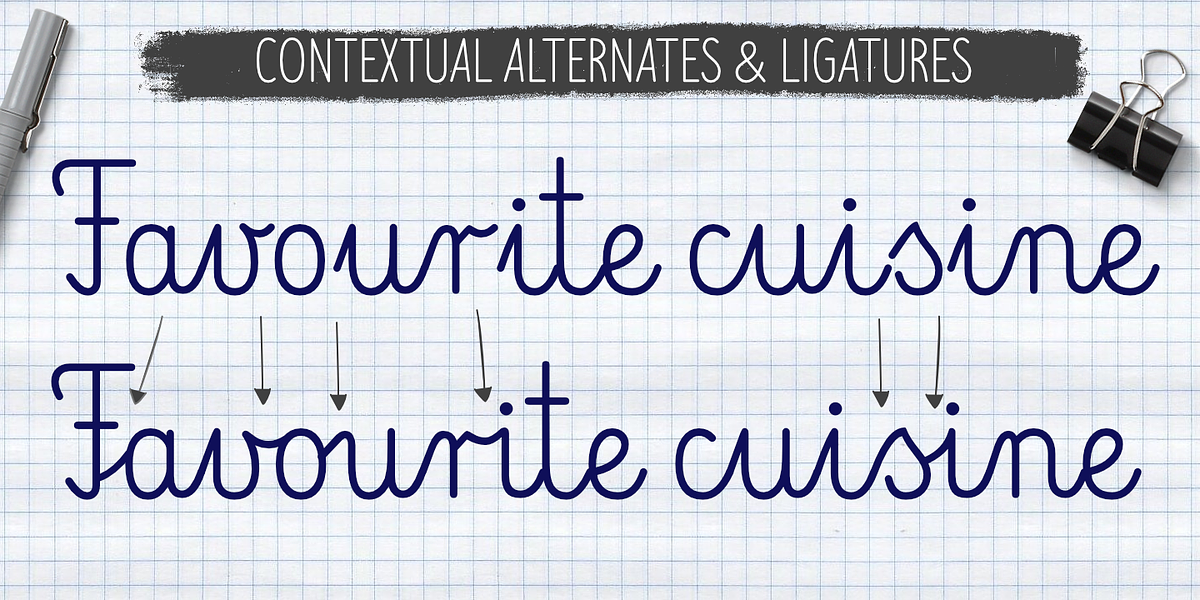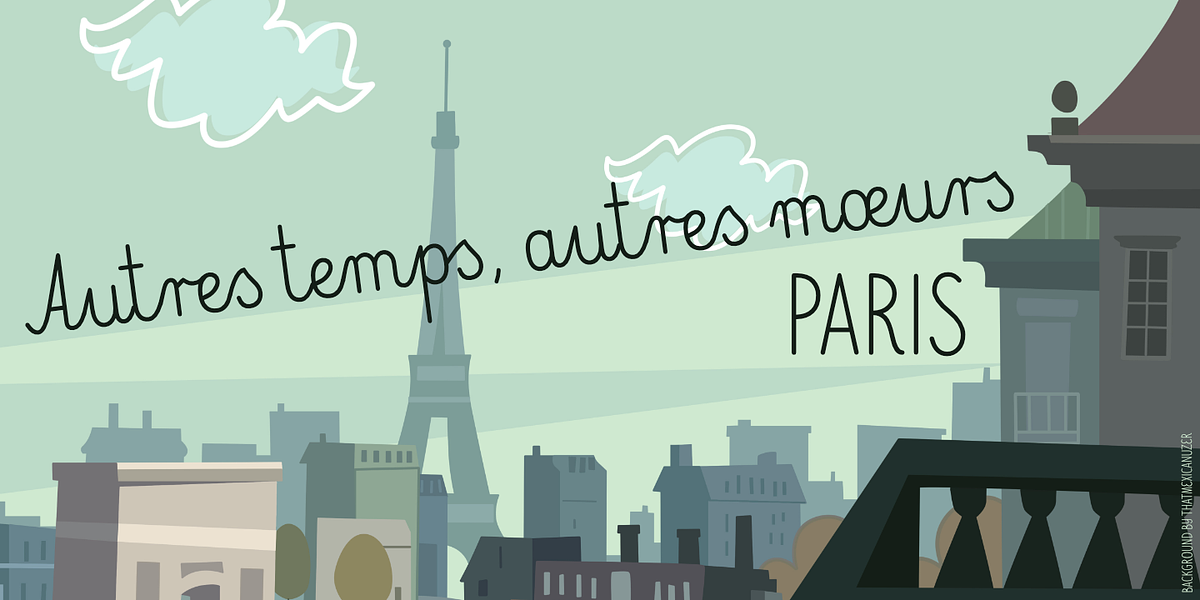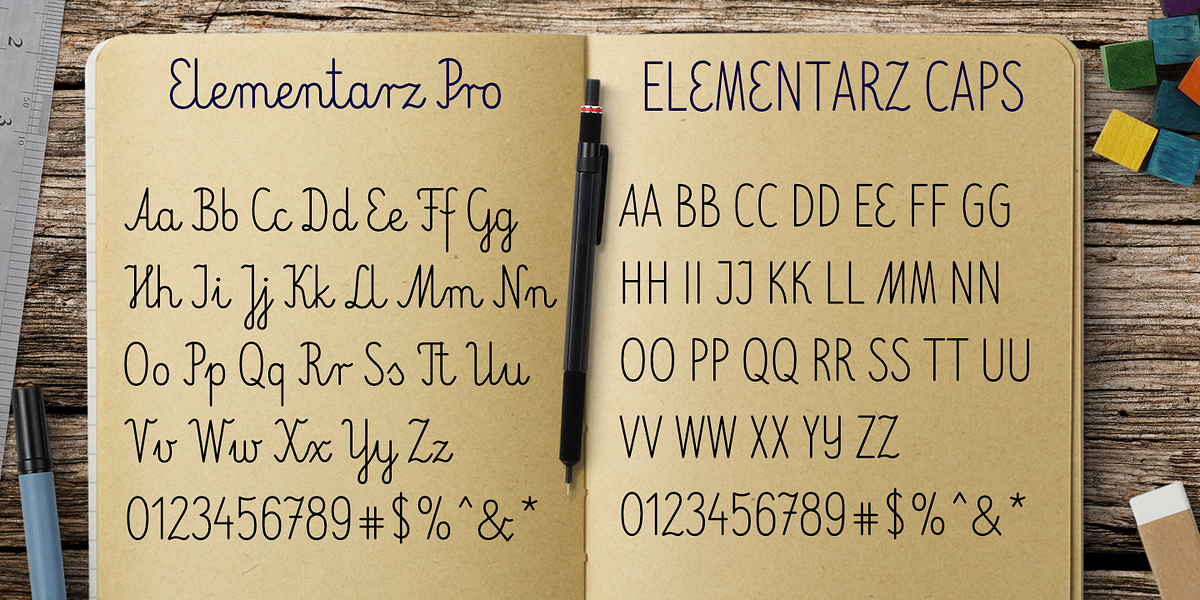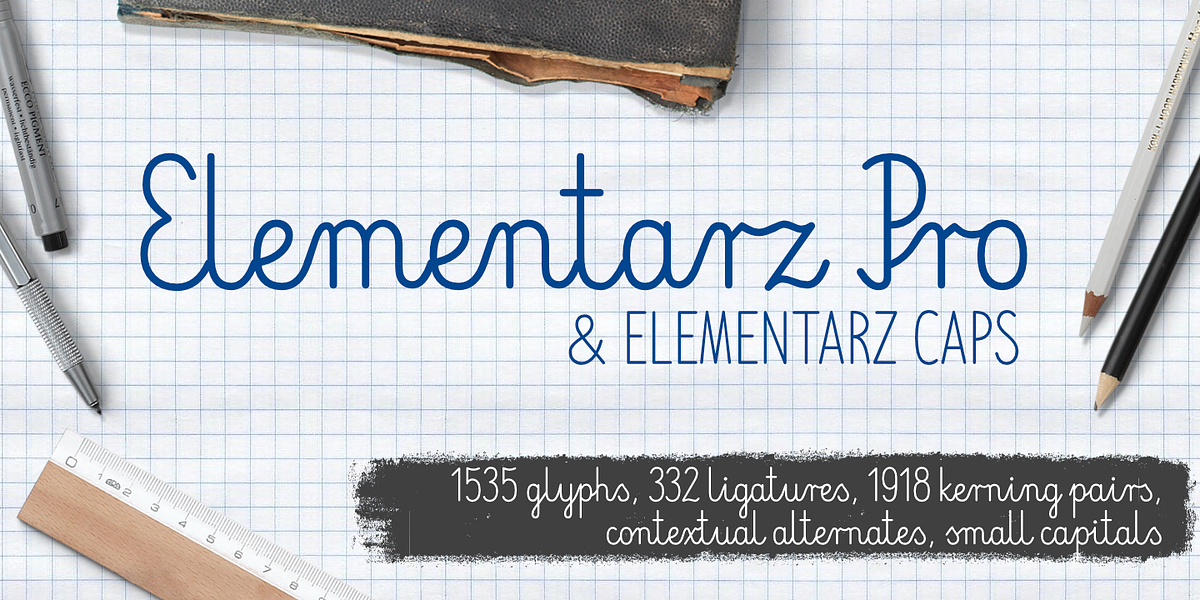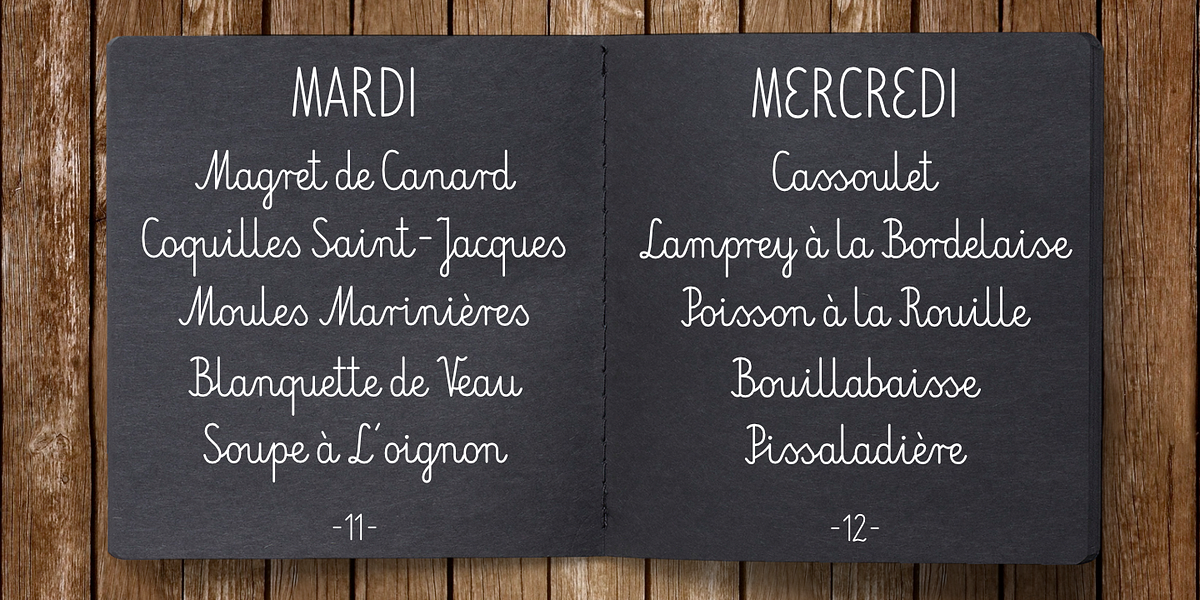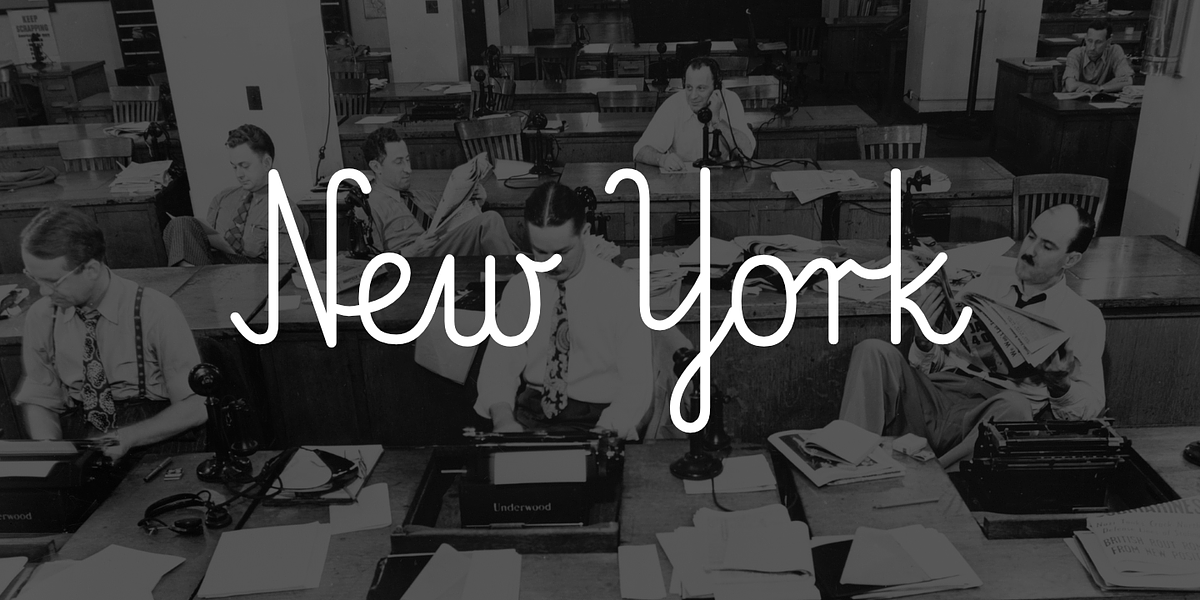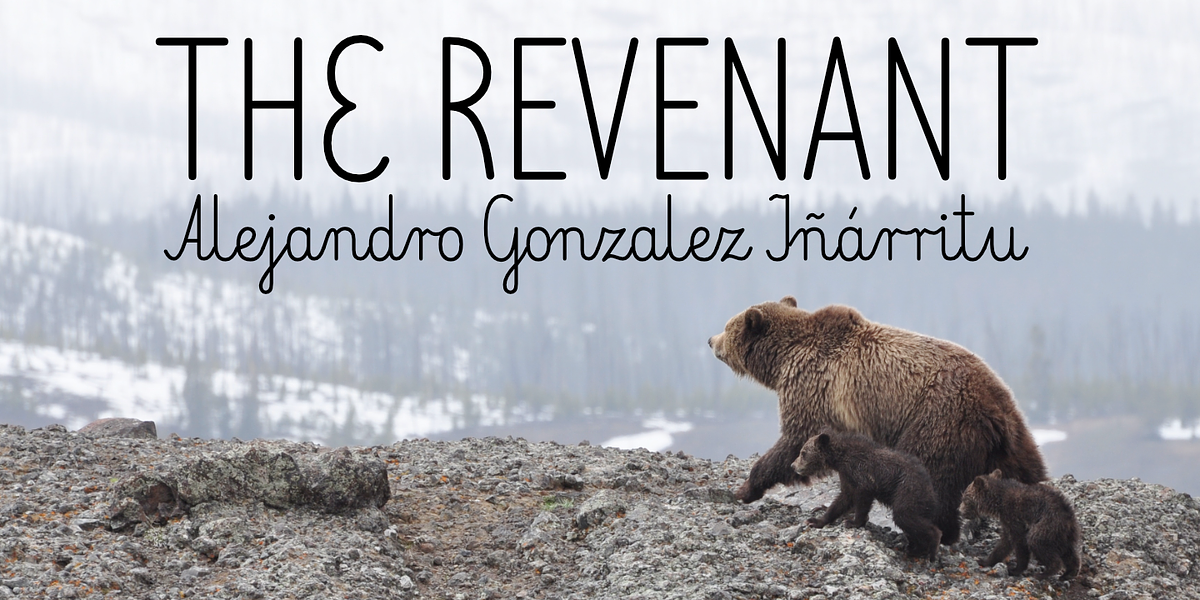
Elementarz
Elementarz Pro is a casual hand script font designed for display purposes. Its monolinear construction and connected letterforms create a playful and friendly aesthetic. The inclusion of ligatures and contextual alternates enhances readability and flow, making it suitable for applications like children's books, branding, and invitations.